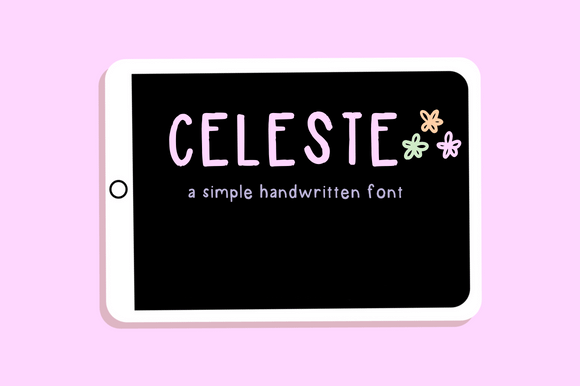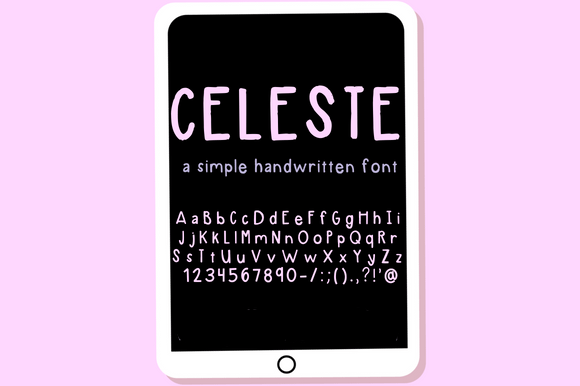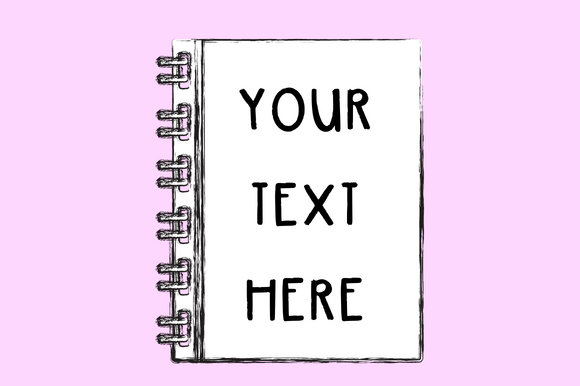
Celeste Font
Celeste Handwritten Font – Playful and Trendy Typeface
The Celeste Handwritten Font is a stylish and playful script typeface designed to bring a trendy look to your creative projects. With its clean handwritten strokes and approachable design, it adds charm and clarity to both personal and professional work. Whether you’re labeling, designing planners, or creating digital templates, this font is the perfect tool to make your projects stand out.
A Handwritten Script with Modern Style
The Celeste Handwritten Font combines smooth handwritten curves with a trendy aesthetic. Its playful yet clean style makes it approachable while ensuring readability. Because of this balance, it works well for digital design, crafts, and even professional branding projects that need a touch of personality.
Perfect for Planners, Labels, and Templates
One of the most popular uses of the Celeste Handwritten Font is in digital calendars, workbooks, and templates. Its stylish strokes bring life to organizational tools while keeping them easy to use. At the same time, it adapts beautifully to labels, greeting cards, and crafts, making it versatile for both everyday and decorative purposes.
The Celeste Handwritten Font adapts well across a variety of contexts. From product packaging and logos to social media graphics and event signage, it adds a handwritten charm that feels both modern and trendy. Its versatility makes it a must-have font for digital creators and crafters alike.
Why Designers Love Celeste Font
Designers love the Celeste Handwritten Font for its perfect mix of playfulness and professionalism. It adds character to creative projects while maintaining readability for functional uses. This balance makes it a reliable choice for a wide range of design needs.